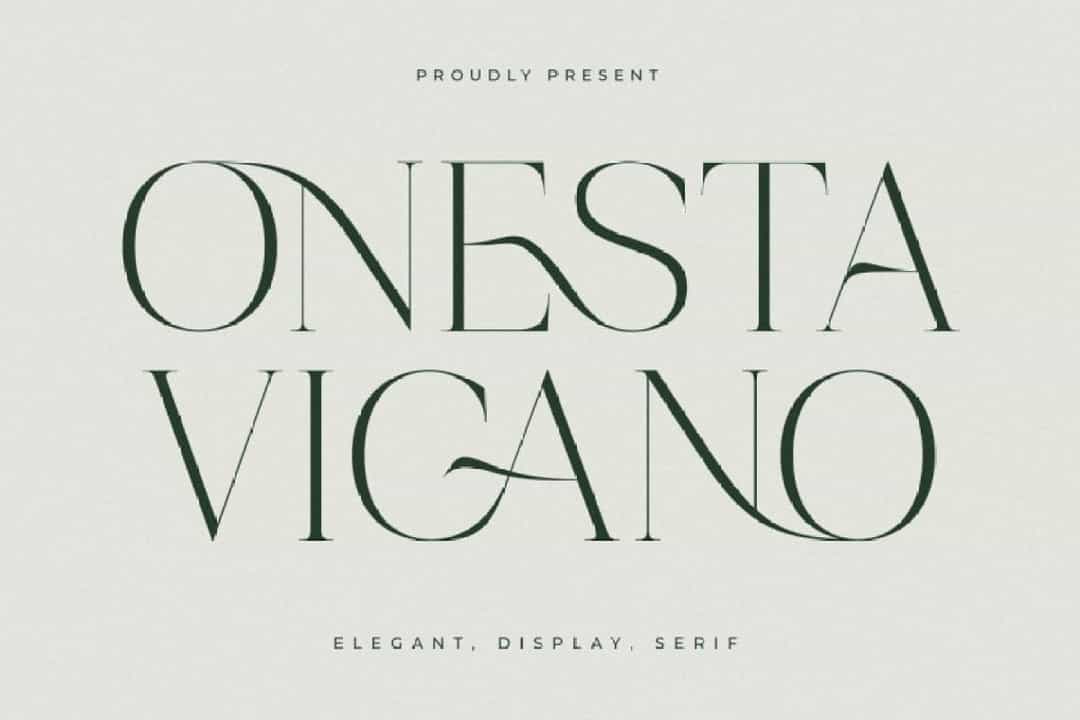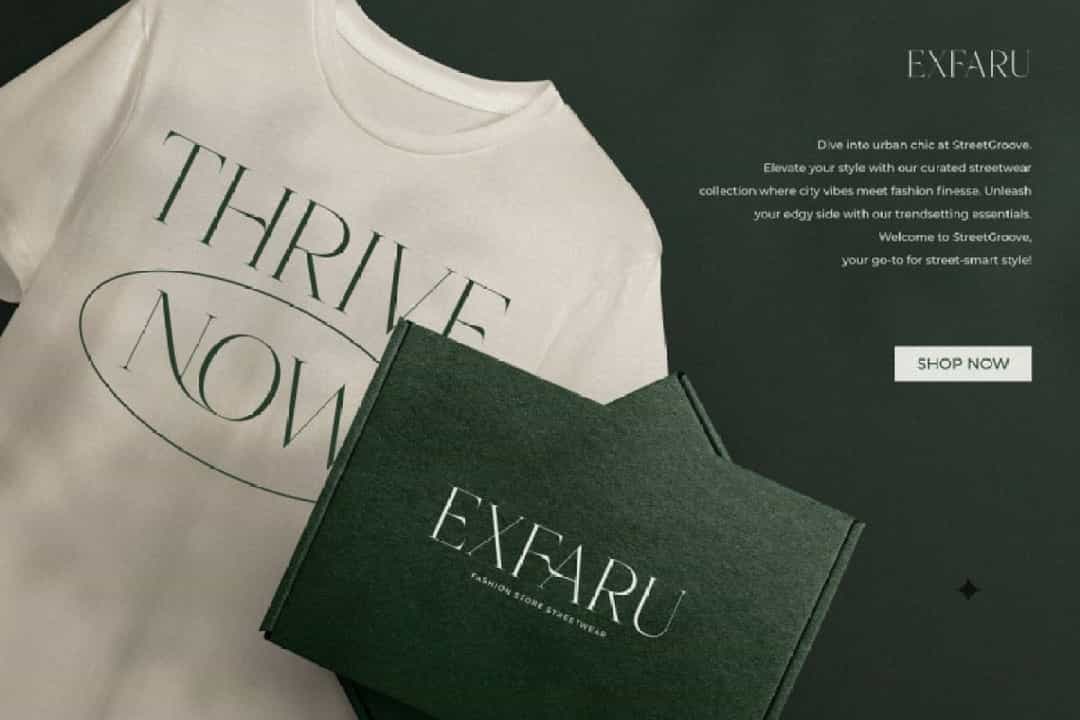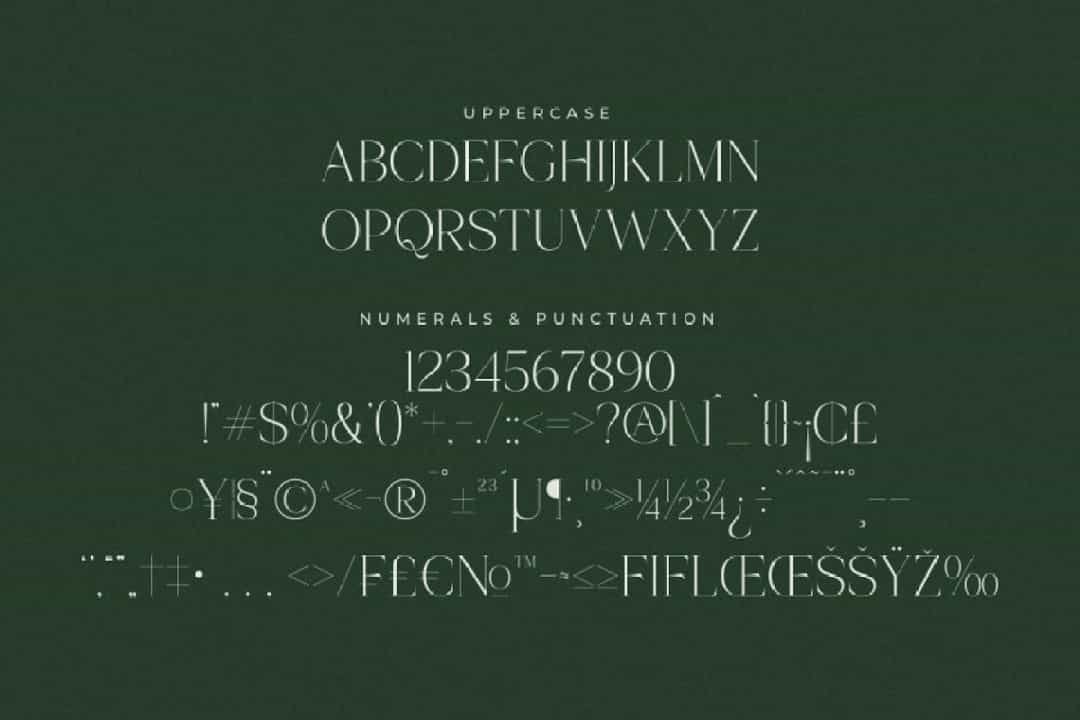
Onesta Vigano Font, created by Storytype, is an elegant display serif font featuring its own distinct style and modern appearance. Ideal for creating classy logos, movie or book styles, fashion label clothing lines, magazines and lettering projects as well as quotes, this font can create beautiful results!